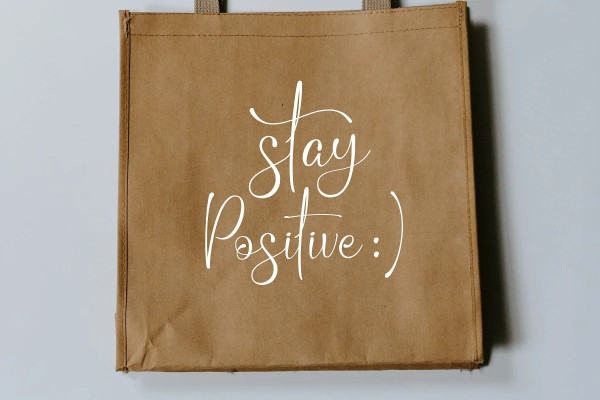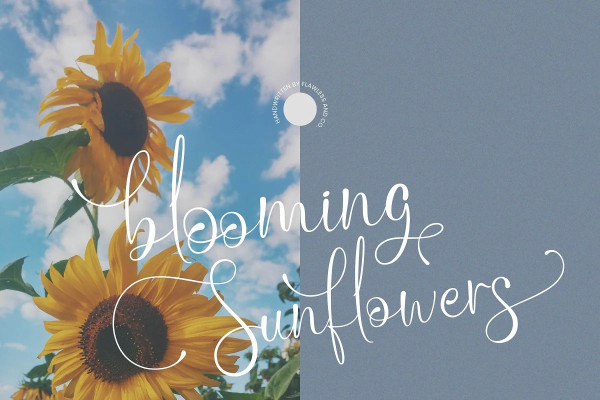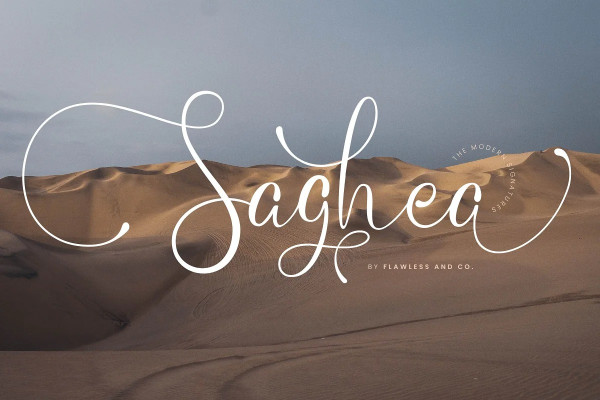
Saghea Font
Saghea Font – Modern Signature is a handcrafted script, this style gives a feel of Girly, modern, Suitable for any graphic designs such as branding materials, t-shirt, print, business cards, logo, poster, t-shirt, photography, quotes .etc